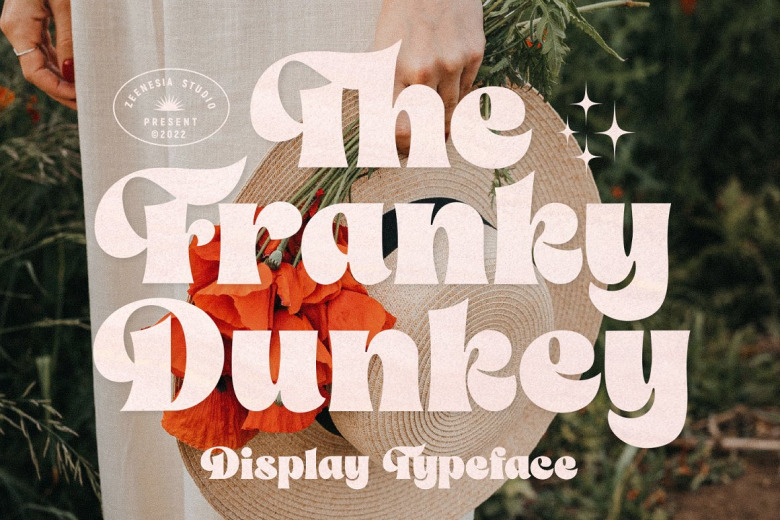
The Franky Dunkey Font
The Franky Dunkey– a Bold style serif display font, with strong character and soft features. The quick brown dog jumps over the lazy fox. It’s a pretty dynamic font that works well en masse. Including headlines, logos & branding work this pairs well with editorial projects or anything needing a strong aesthetic. Make sure to pack the visual punch that you intended and grab your copy of Unmissable today!
The Franky Dunkey Display Font